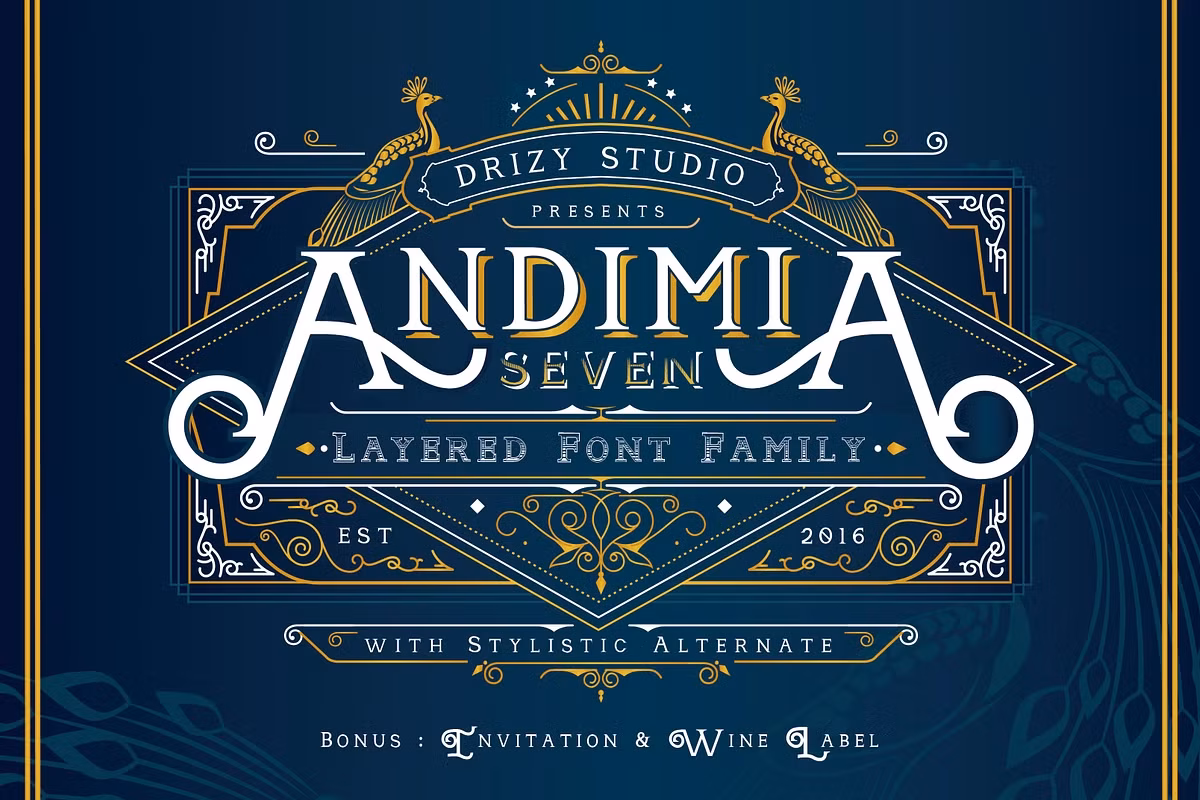
Andimia Layered Fonts Family Free Download is a classic-style serif typeface designed by Drizy Studio. This versatile font family includes seven distinct styles: Regular, Deboss, Steel, Fade Out, Stripes, Shadow, and Shadow Line, allowing you to create layered and textured typographic designs.
Andimia supports basic Latin glyphs, punctuation, and numerals, making it suitable for various design projects such as headlines, logos, and short text. The package also includes bonus materials like an ornament pack, wedding invitation templates, and wine label designs, providing additional creative resources.